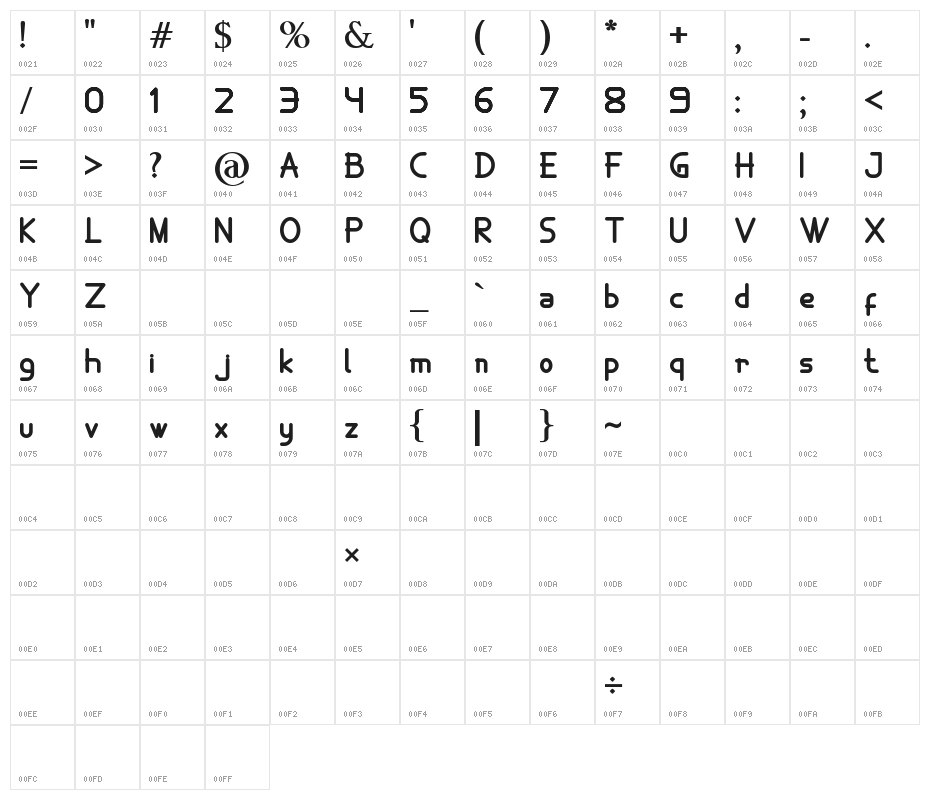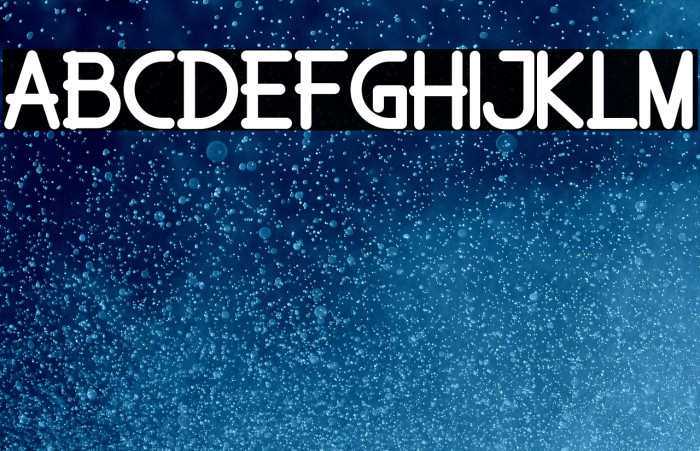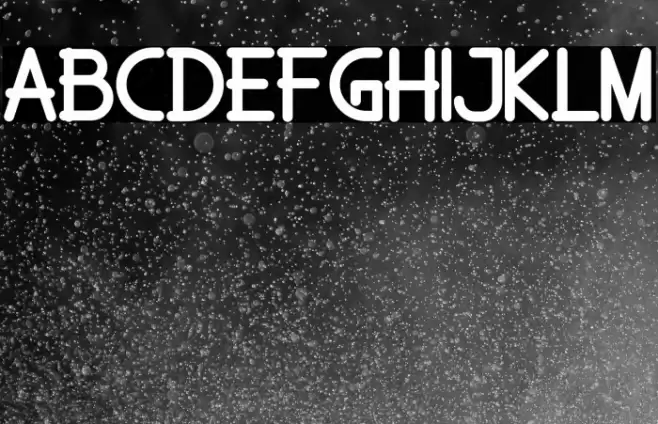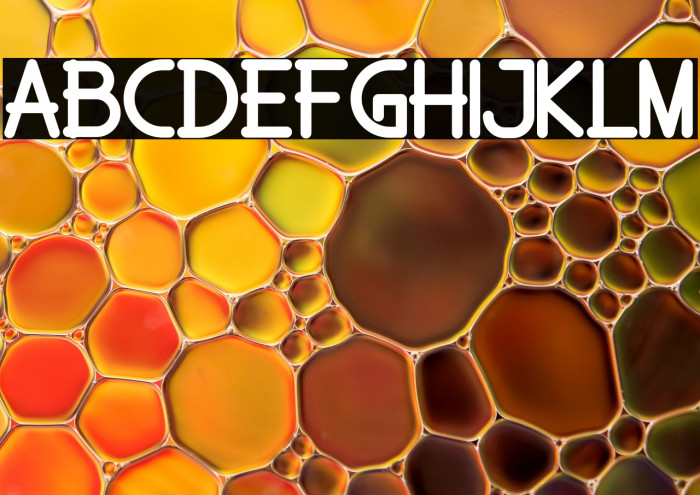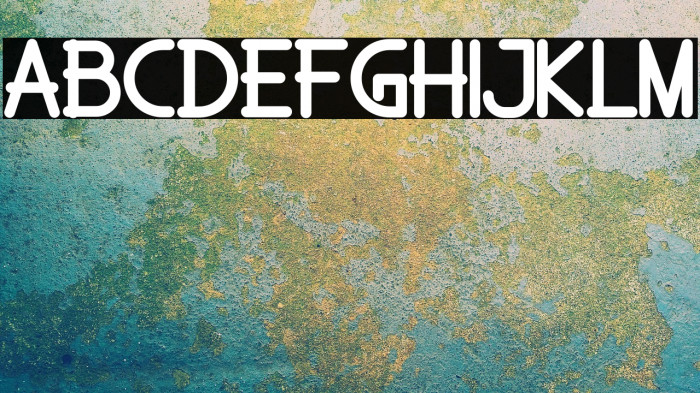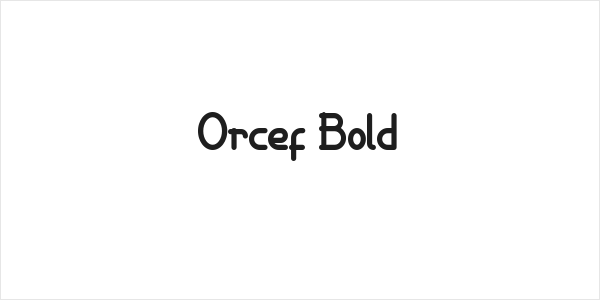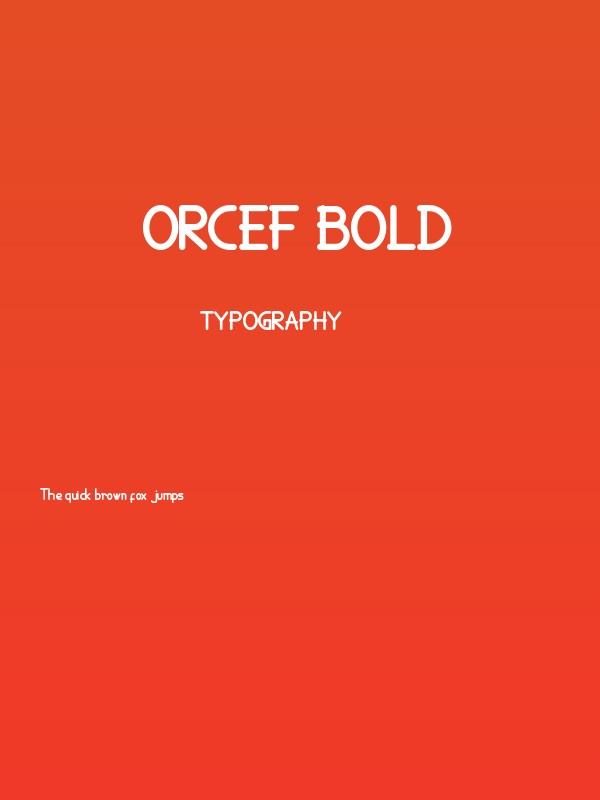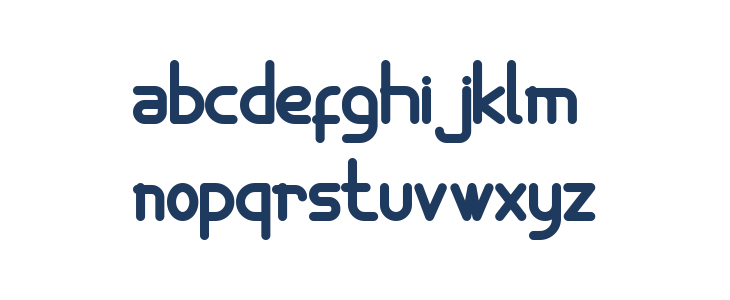
Orcef Bold Font
Orcef Bold Description
This font features a bold and rounded style with a modern and playful appearance. The characters are uniformly thick, providing a consistent and cohesive look across both uppercase and lowercase letters. The rounded edges soften the overall aesthetic, making it approachable and friendly. The numerals and special characters maintain the same rounded and bold characteristics, ensuring readability and visual harmony. Its design is clean and simple, yet distinct, making it suitable for various creative applications.
| Proposed Projects | Ideal for branding, children's books, posters, and playful graphic design projects. |